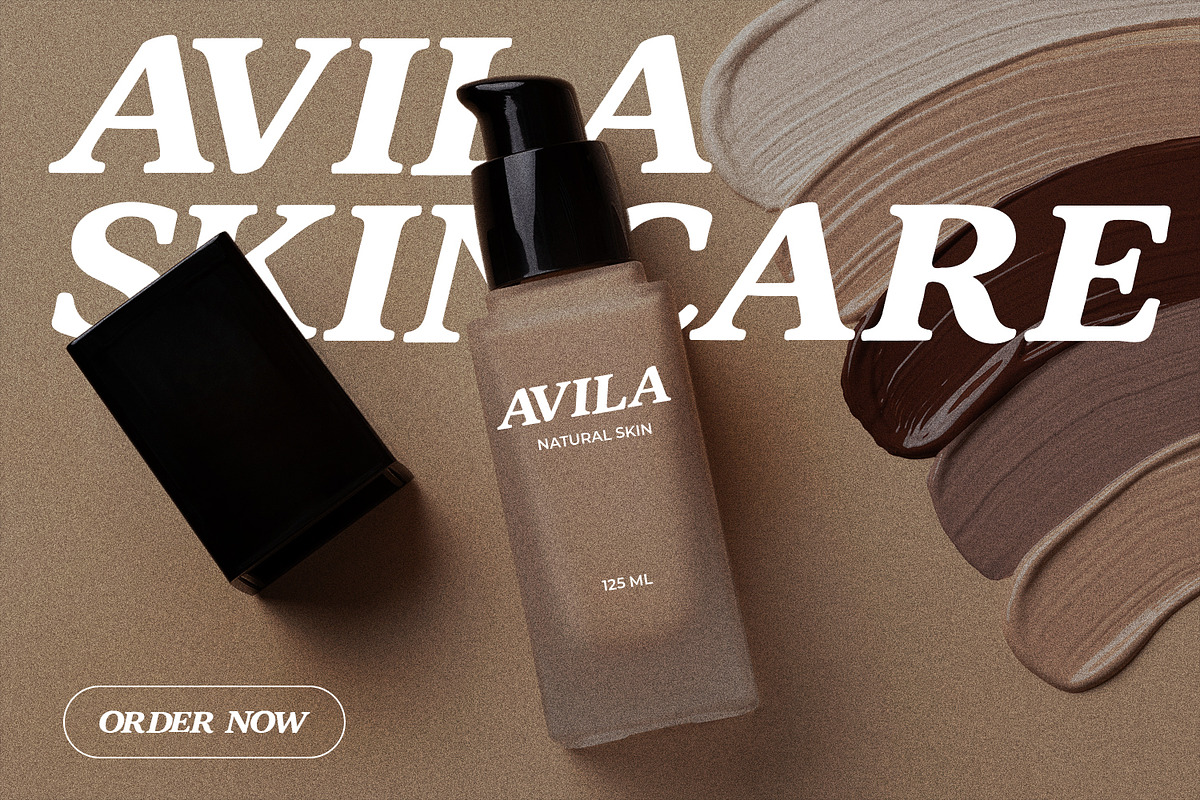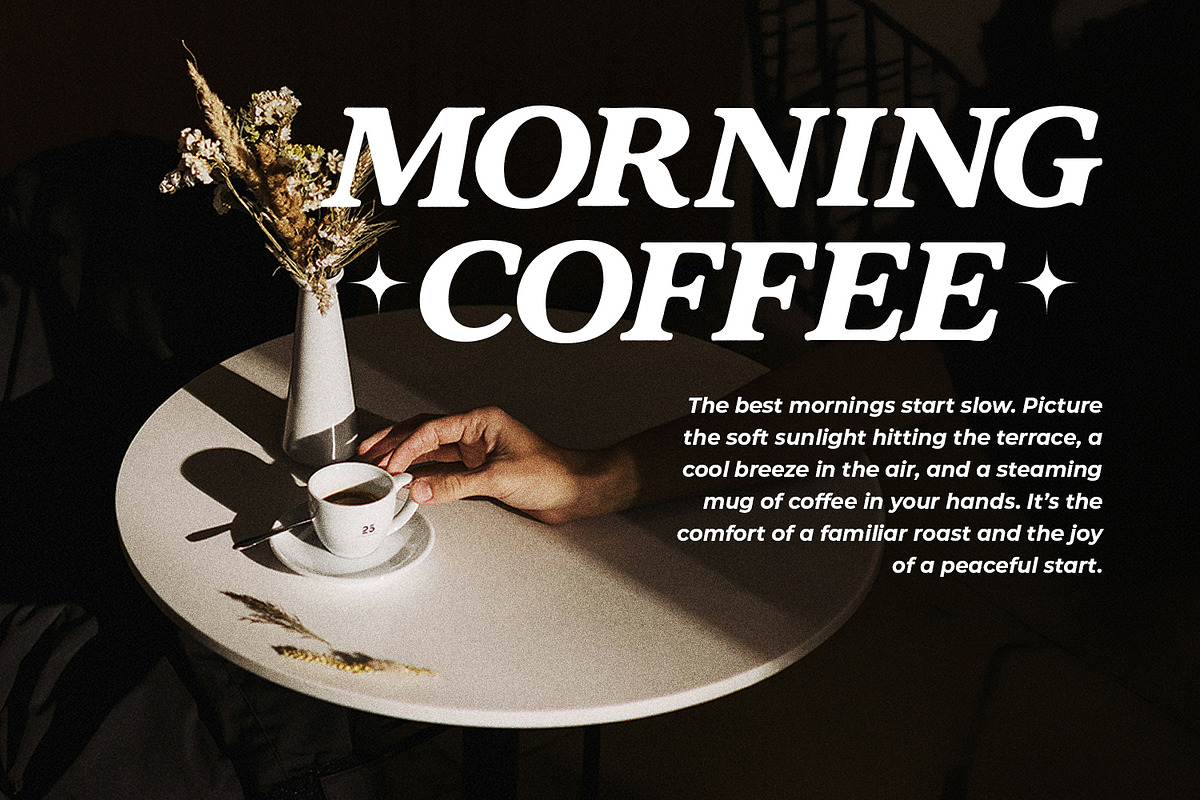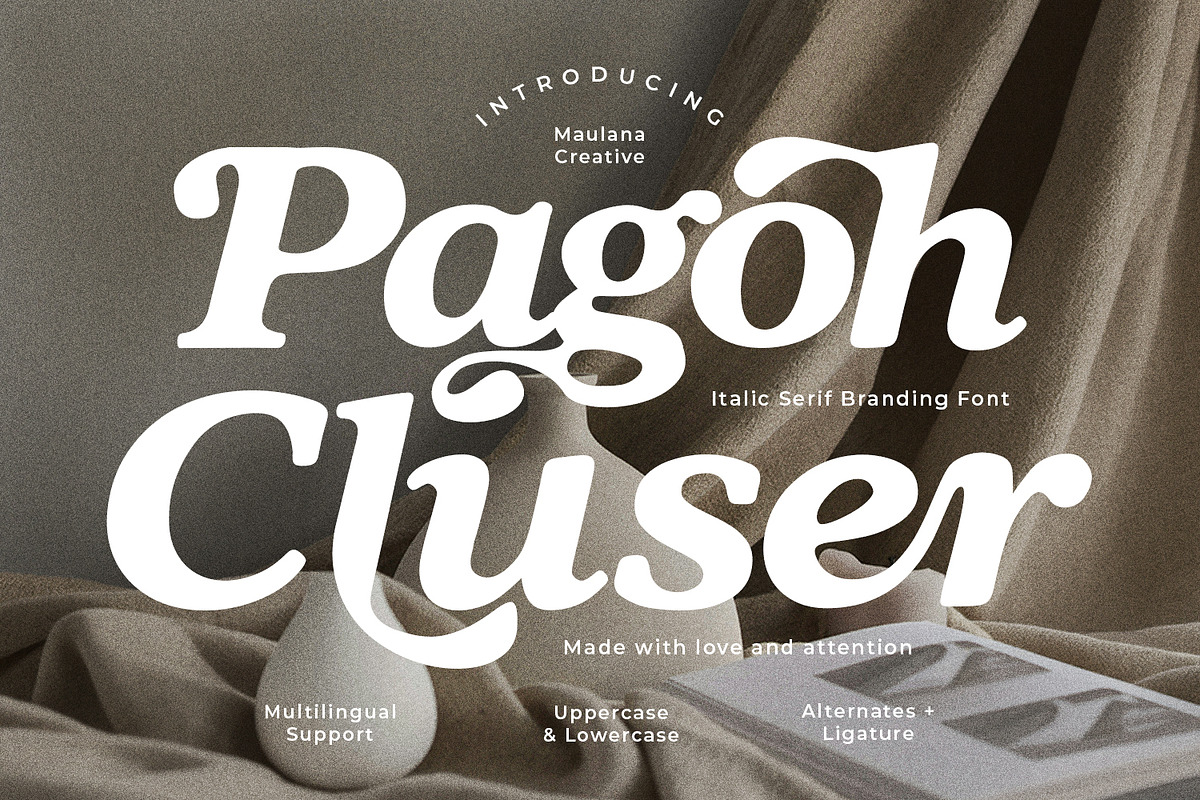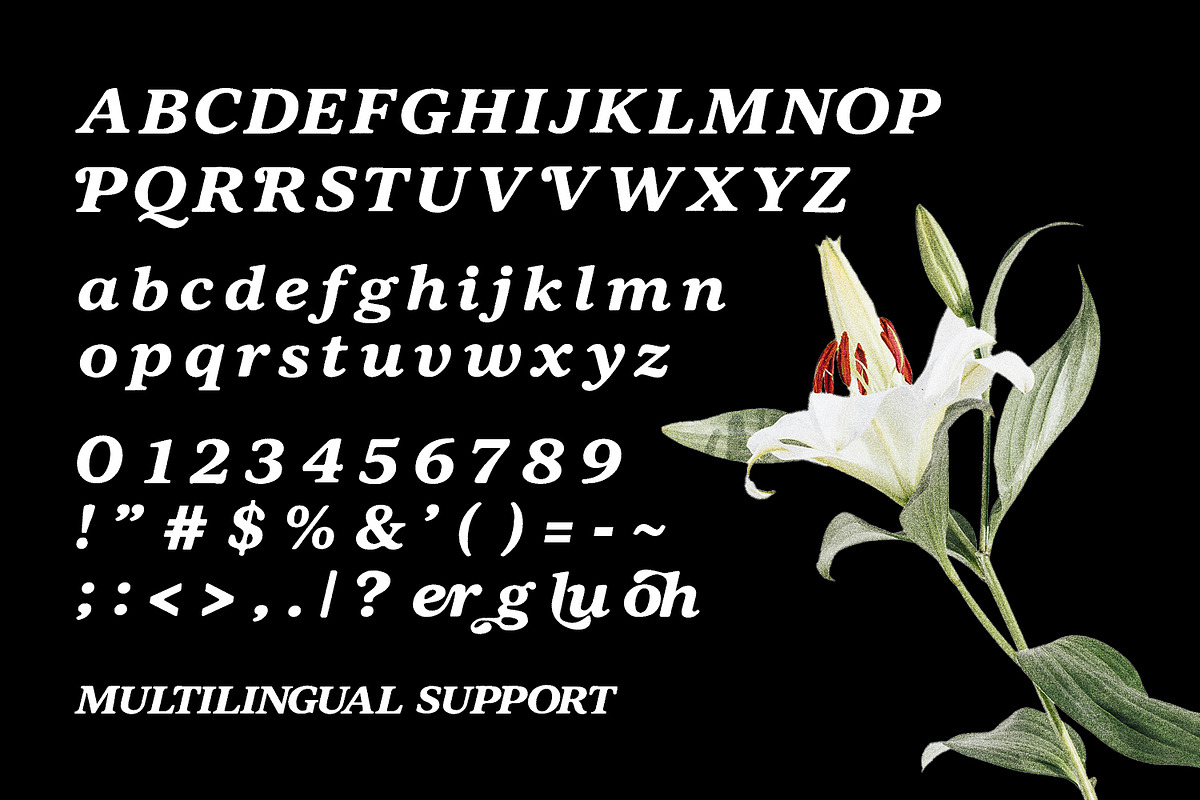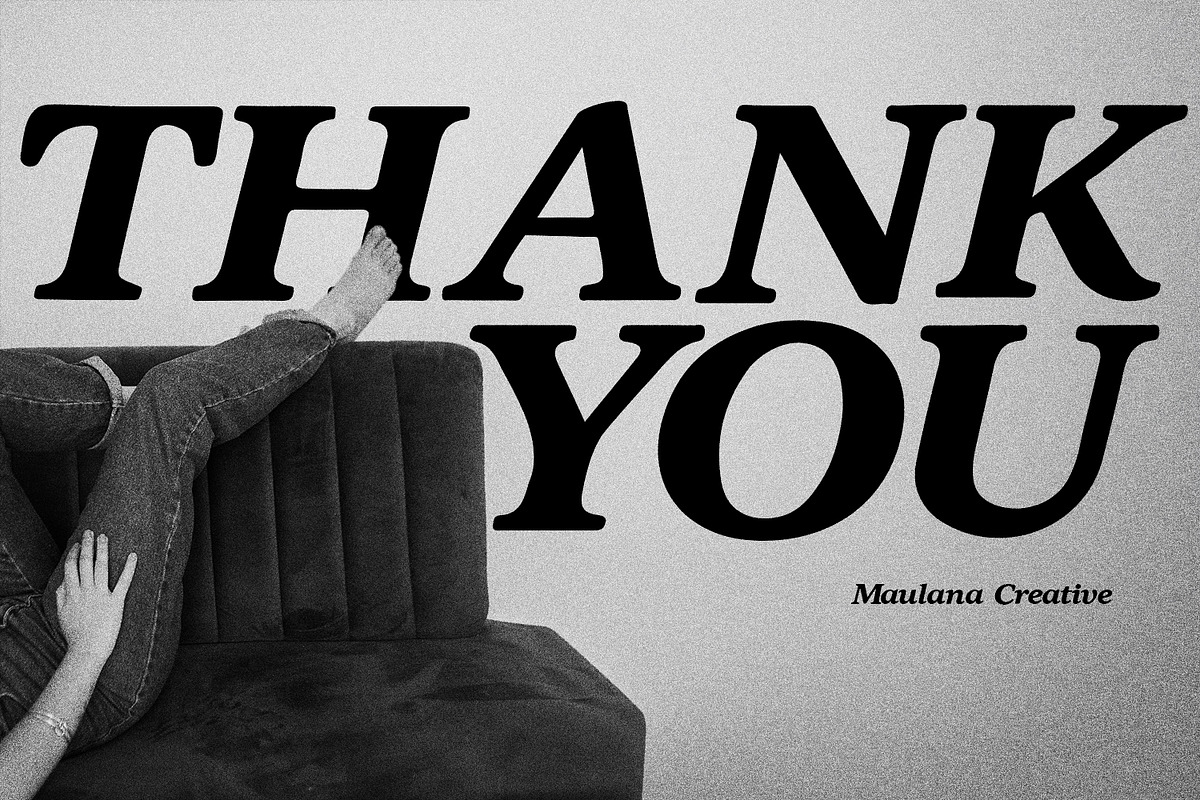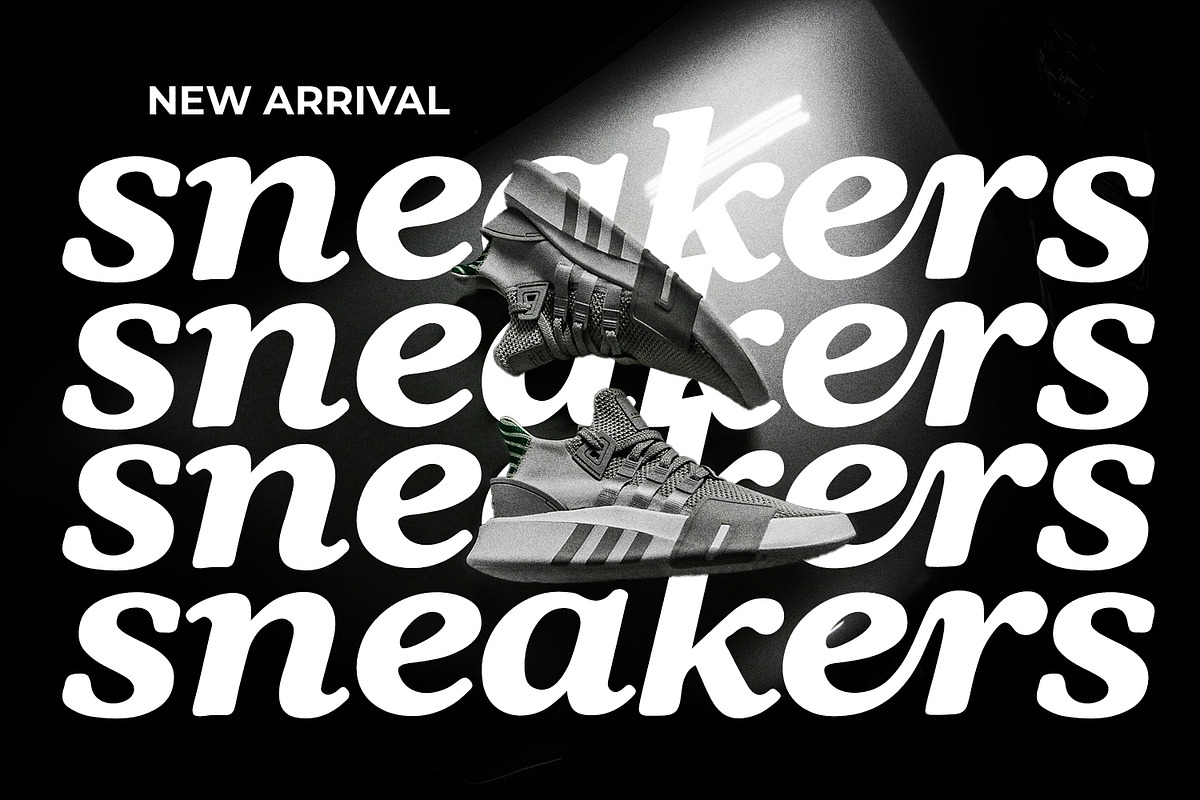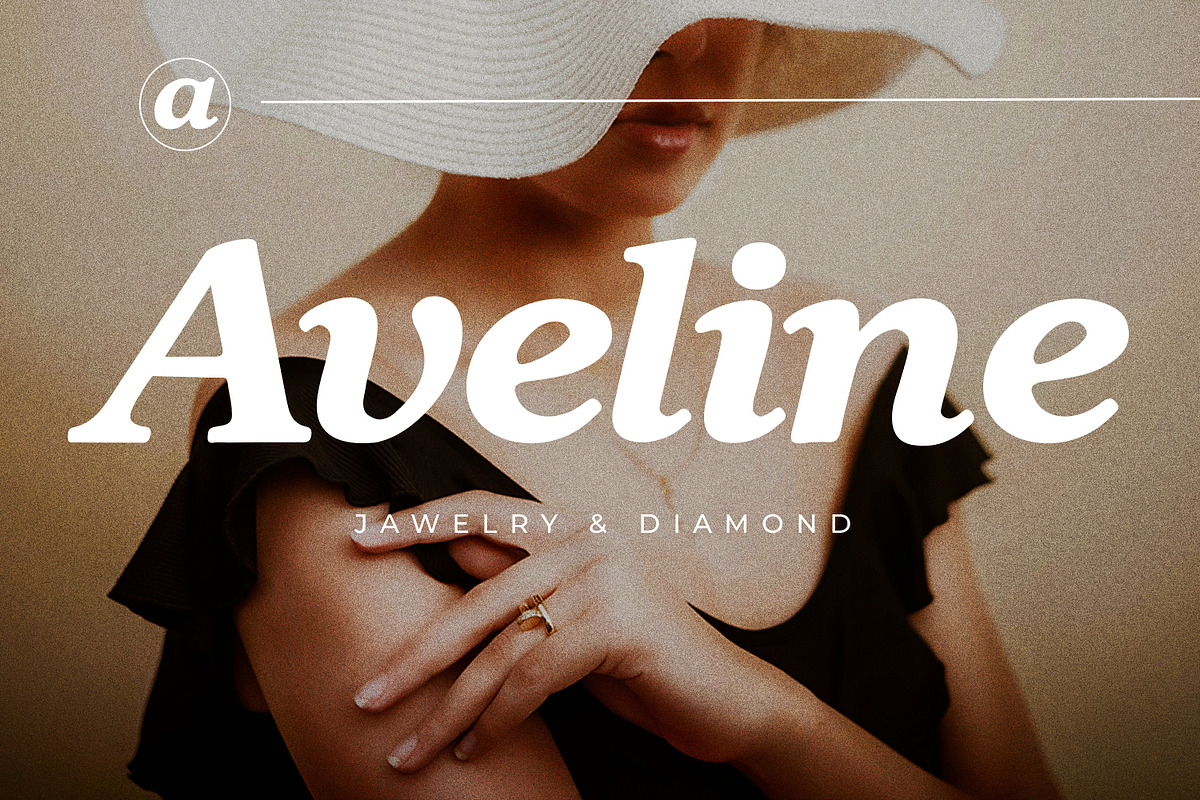
Pagoh Cluser Elegant Italic Serif
Pagoh Cluser is a sophisticated display typeface that seamlessly blends traditional serif structures with a fluid, italic posture. Designed by Maulana Creative, this font features soft, sweeping curves, elegant ligatures, and distinct alternate characters that bring a sense of luxury and grace to any layout. Its bold weight and rhythmic slant make it highly legible yet deeply expressive, perfectly suited for editorial headlines, high-end packaging, logo design, cosmetic branding, and minimalist promotional graphics. With built-in multilingual support, numerals, and comprehensive punctuation, Pagoh Cluser offers a seamless balance of classic sophistication and contemporary aesthetic warmth.
Full character set
Numbers, Punctuation, and Symbols
Alternate and Ligature